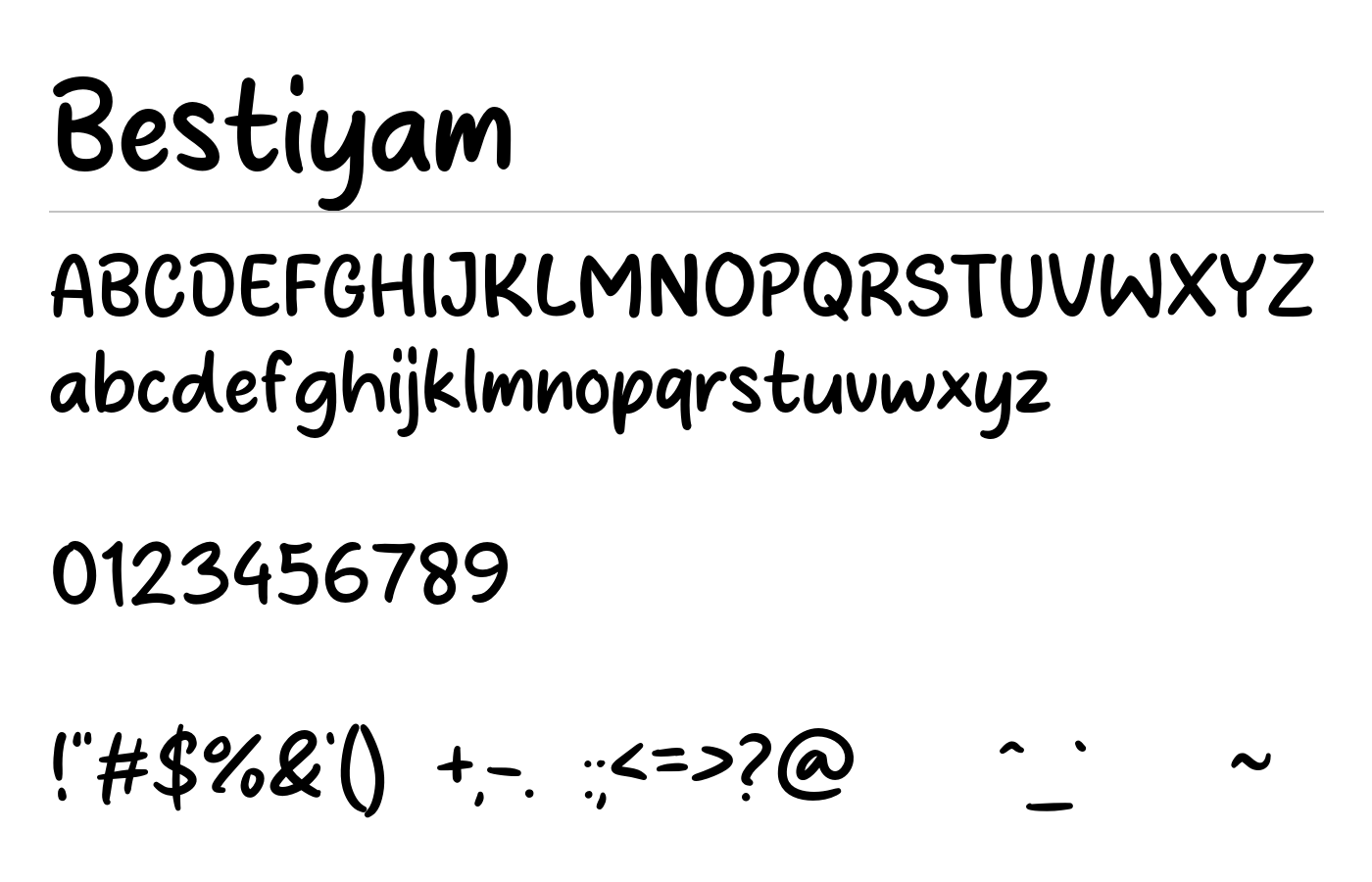
Bestiyam is a playful and casual handwritten sans serif font with a friendly, informal vibe. Its smooth, rounded strokes and moderate x-height make it highly readable while maintaining a warm, approachable character, ideal for projects seeking a personal and fun feel. This font works well for children’s books, casual branding, social media graphics, and any design that wants to convey warmth and creativity.
Bestiyam Font
About Bestiyam Font